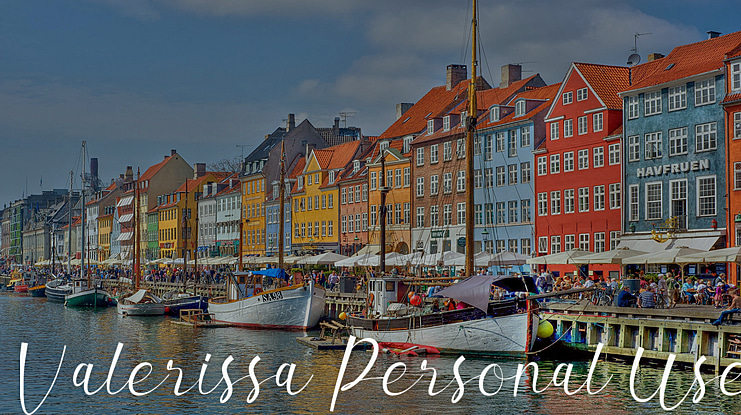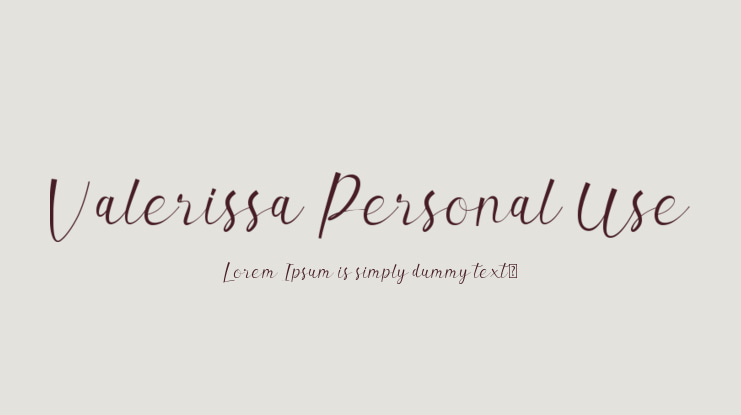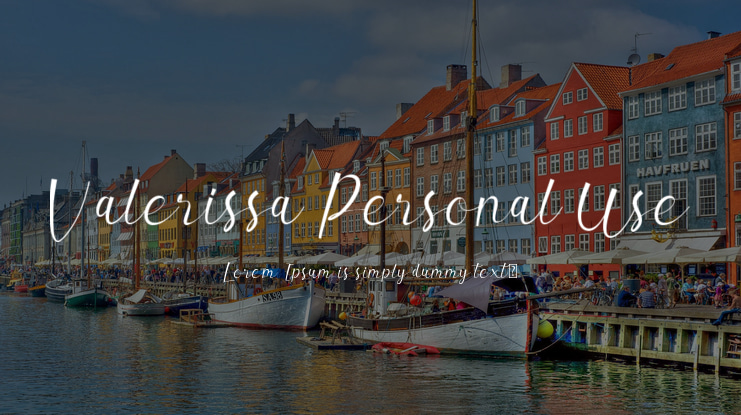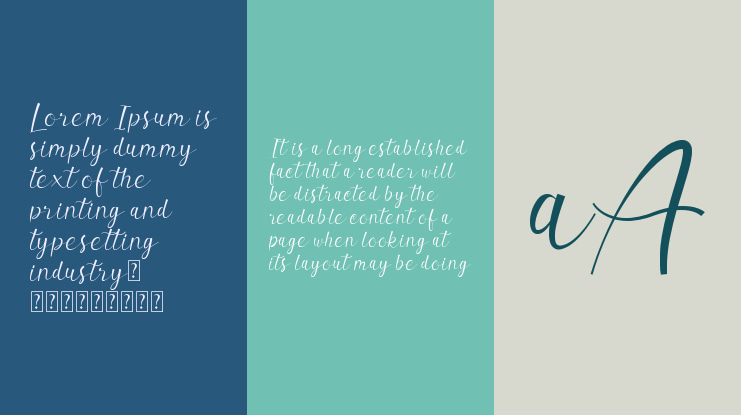
Valerissa Personal Use Font
Valerisa Script is a beautiful calligraphy handwriting font. fonts look beautiful and sweet after being applied in your various design products such as websites, invitations, posters, mockups, branding cards and more.
Valerisa Script includes a full set of large and attractive international letters, numbers, punctuation and ligatures. All lowercase letters include the beginning and end of the swashes. Also, follow multilingual symbols.